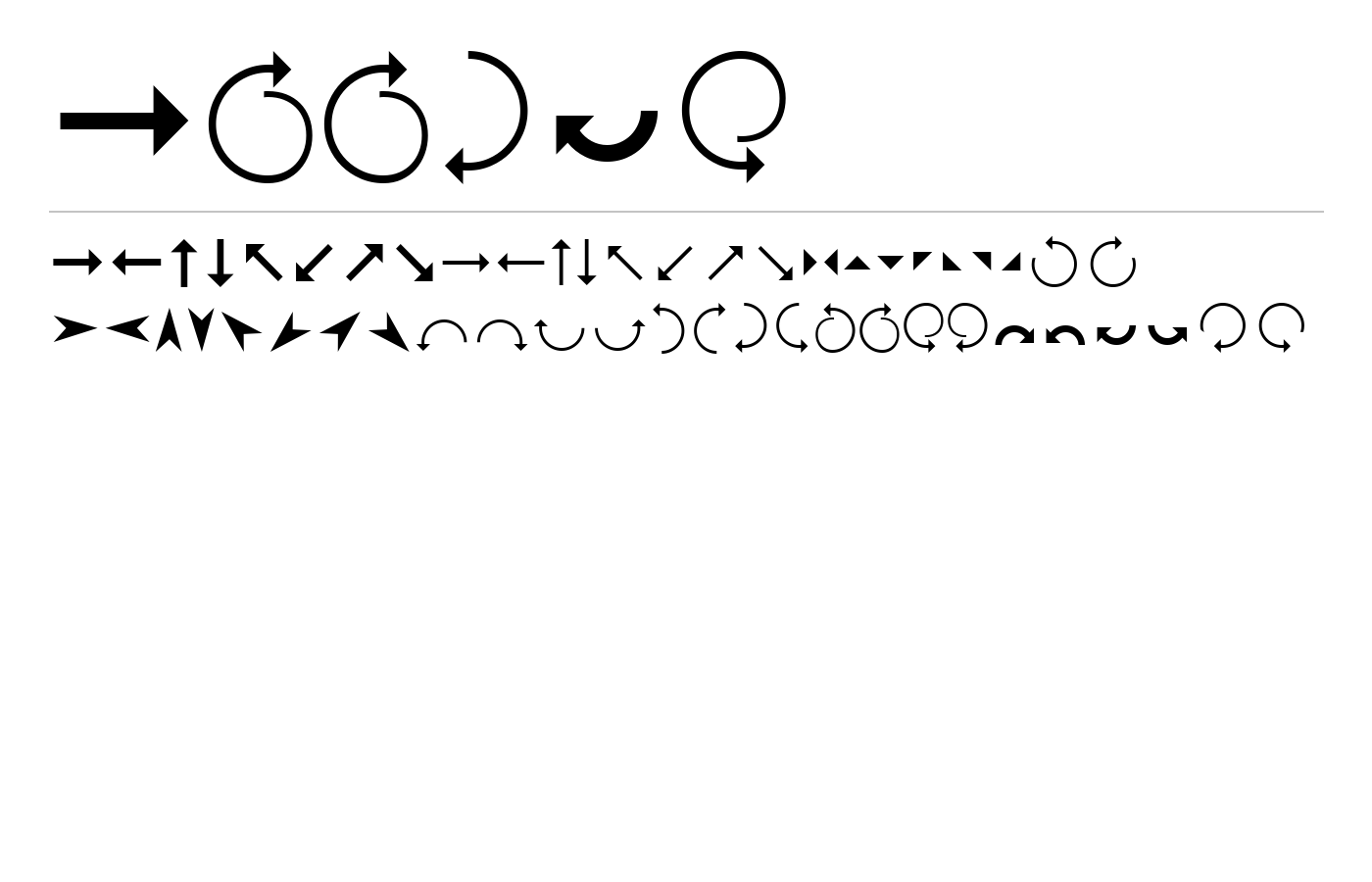
Arrows Font is a clean and versatile symbol font featuring a variety of bold, geometric arrow shapes in different directions and styles. Its simple, solid strokes and balanced proportions make it ideal for use in signage, wayfinding, infographics, and user interfaces where clear visual guidance is needed. With its straightforward and modern look, this font effectively communicates movement and direction in a stylish yet functional way.